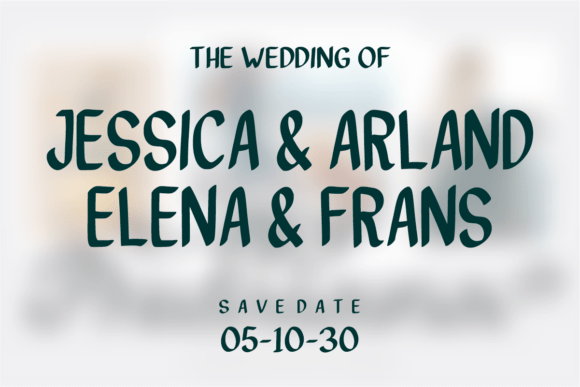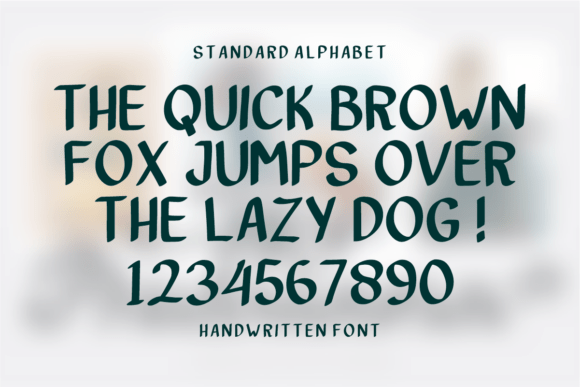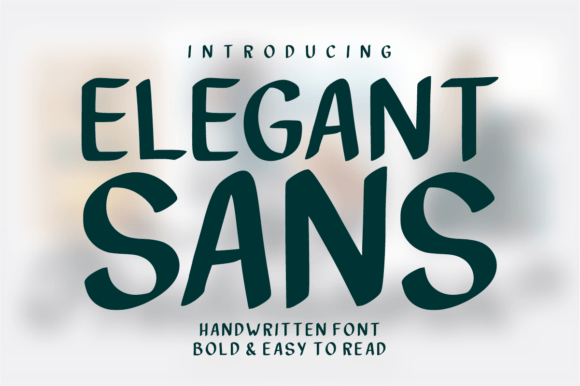
Elegant Sans Font: Elevate Your Designs with Sophistication
✨ Elevate your designs with the sophisticated touch of “Elegant Sans”! ✨ Are you tired of using fonts that are either too bland or too over-the-top? Look no further than Elegant Sans, a modern handwritten font that strikes the perfect balance between a clean, professional look and a warm, personal feel.
What is Elegant Sans?
Elegant Sans is a versatile font designed to cater to a wide range of design needs. Featuring bold strokes and excellent legibility, this font seamlessly fits into both minimalist aesthetics and playful, creative layouts. 🖋️ Whether you’re working on a branding project, social media content, or a personal craft, Elegant Sans is the ideal choice for designers who need a font that is both stylish and highly functional.
Key Features of Elegant Sans
- Modern Handwritten Style: Elegant Sans boasts a fresh, contemporary look that sets it apart from traditional fonts.
- Clean and Professional: With its structured sans-serif flow, this font maintains a level of sophistication perfect for professional designs.
- Warm and Personal: The authentic charm of manual handwriting adds a touch of warmth and personality to your designs.
- Bold and Easy to Read: The font’s bold strokes ensure that your text is always legible, making it perfect for various media.
- Timeless Appeal: Unlike trendy fonts that may quickly go out of style, Elegant Sans has a timeless quality that ensures your designs remain relevant.
Elegant Sans is incredibly versatile and can be used in a multitude of design projects, including:
- Social Media Quotes & Instagram Posts 📱: Add a touch of elegance to your social media content and make it stand out.
- Minimalist Logo Branding & Identity 🏷️: Create a sophisticated brand identity with a clean and modern logo.
- Product Packaging & Labels 📦: Elevate your product packaging with a font that exudes class and sophistication.
- Greeting Cards & Modern Invitations 💌: Add a personal touch to your greeting cards and invitations with Elegant Sans.
- Website Headers & Blog Graphics 💻: Enhance your website’s visual appeal with elegant and readable headers.
- Apparel Design & Tote Bags 👕: Create stylish and memorable apparel designs with Elegant Sans.
Why Choose Elegant Sans?
With so many fonts available, why choose Elegant Sans? Here are a few compelling reasons:
- Unique yet Versatile: Elegant Sans offers a unique look that can adapt to various design contexts.
- Highly Legible: The font’s design ensures that your text is always easy to read, even at smaller sizes.
- Easy to Pair: Elegant Sans pairs well with a variety of fonts, making it easy to find complementary fonts for your design.
In conclusion, Elegant Sans is a modern handwritten font that offers the perfect blend of sophistication, versatility, and personality. Whether you’re a designer, crafter, or simply someone who appreciates beautiful typography, Elegant Sans is an excellent addition to your font collection. So why wait? Get Elegant Sans today and start creating stunning designs that exude elegance and class! 🌟